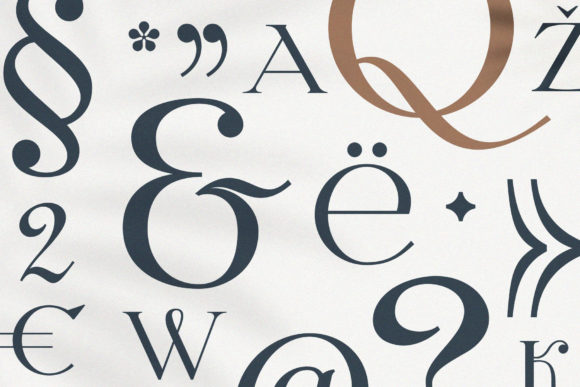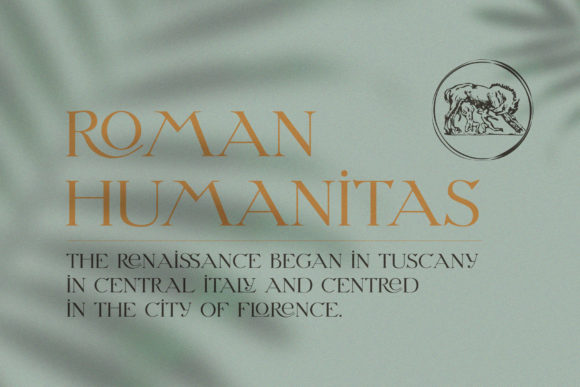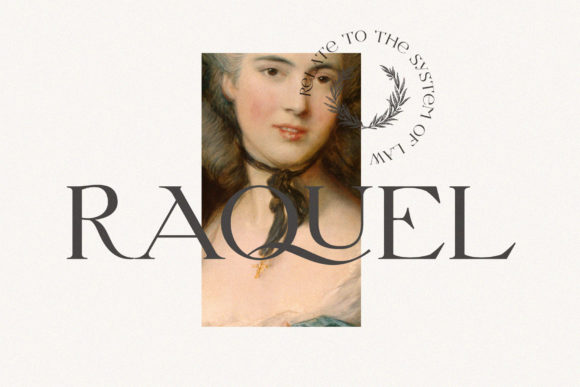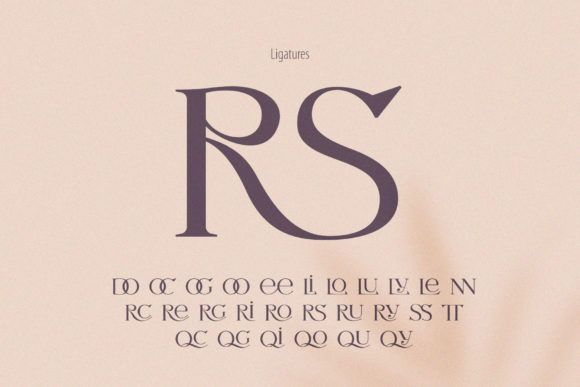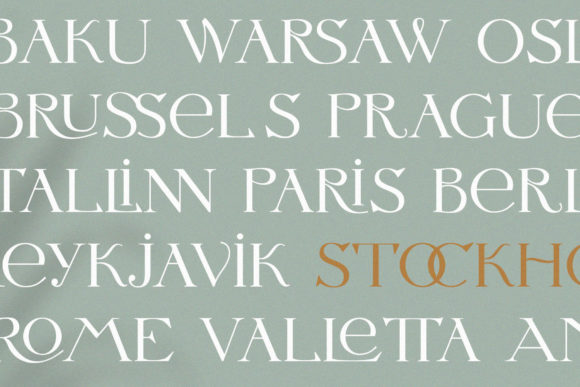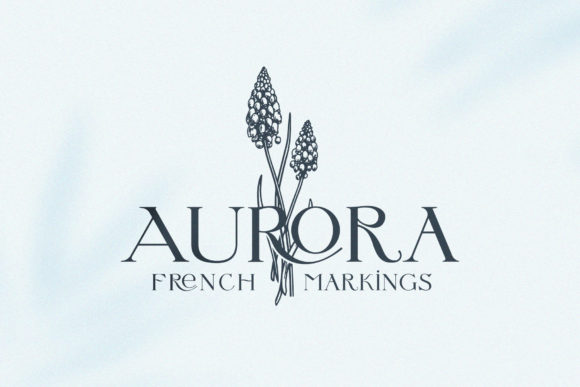
Introduction to Letterature Font
Have you ever found yourself staring at a blank page, desperate for the perfect font to bring your creative project to life? I know I have. As a designer, I’m always on the lookout for that one special font that will elevate my design and make it truly stand out. That’s where Letterature Font comes in – a stunning serif font that’s sure to make your designs shine.
With its elegant, old-fashioned letters and playful ligatures, Letterature Font is the perfect choice for designers who want to add a touch of sophistication to their work. Whether you’re working on a product packaging project, creating a magazine cover, or just need a font for social media, Letterature Font is a valuable resource that’s sure to deliver high-quality results.
Key Features of Letterature Font
- High-quality font design with a transparent background, ideal for creative projects and design resources.
- Features a unique, elegant design that is perfect for titles, headings, and other display text in your creative project.
Honest Review: Letterature Font
I recently stumbled upon the Letterature Font while searching for the perfect design resource for a creative project. I was immediately drawn to its elegant and sophisticated appearance. The font features a classic, serif design that would be perfect for projects that require a touch of sophistication and refinement.
- High quality design that is perfect for creative projects
- Features a transparent background, making it easy to use with any design
- Great for projects that require a classic, elegant look
Overall, I’m impressed with the Letterature Font. It’s a high-quality design resource that is perfect for creative projects that require a touch of sophistication. I would definitely recommend it to designers who are looking for a classic, elegant look.
Tips for Getting the Most Out of Letterature Font
For optimal results, use the font with a transparent background to create a clean and modern look. Experiment with different font sizes and styles to add depth and interest to your design.
Letterature Font is perfect for:
- Logo designs
- Website headers
Merriweather is a classic serif font designed by Eben Sorkin. It’s perfect for creating a timeless and professional look in your design project, making it ideal for books, magazines, and other publications. Merriweather is free to download and use, with a transparent background that allows for seamless integration into any design.